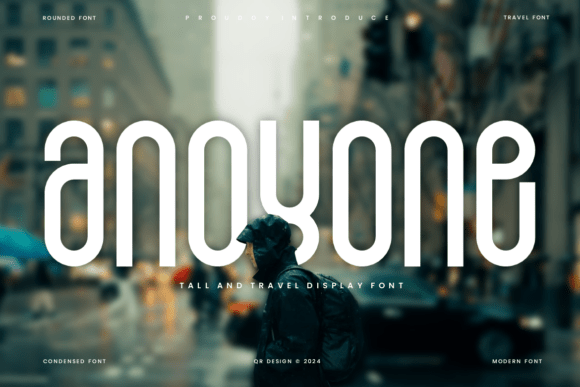
Unleashing Creativity with Anoyone Font
Imagine you’re brainstorming ideas for a new sports brand, and suddenly, the perfect logo pops into your mind. It’s bold, eye-catching, and screams excitement. But, have you ever struggled to find the right font to bring your vision to life? This is where Anoyone – Tall & Travel Display Font comes in – a game-changing typography solution that’s about to revolutionize your design process.
Anoyone Font is a versatile display font designed to make a statement in any branding project. From logos to sports jerseys, its bold and authentic style is sure to leave a lasting impression. As a designer, you know the importance of finding the perfect font to match your client’s brand identity. Anoyone Font is a valuable addition to your toolkit, offering endless possibilities for creative expression.
Anyone Font Key Features
- Font Family: Anyone Font is a sans-serif font family designed to be highly readable and versatile.
- Unique Characteristics: The font features a clean and modern design with a unique blend of geometric and organic elements, making it suitable for a wide range of applications, including corporate branding, advertising, and editorial content.
Anoyone Font Review
I recently had the chance to work with the Anoyone font, and I must say, it’s an interesting one. Here are my thoughts:
- Unique Character: Anoyone font has a distinct personality that sets it apart from other fonts. Its quirky design makes it perfect for projects that require a touch of whimsy.
- Legibility: Despite its unusual shape, the font is surprisingly readable, especially in larger font sizes.
- Limited Font Weights: The font family is relatively small, which can limit its versatility in certain projects.
- No Italic or Oblique Options: While the font is great for headings, it lacks italic or oblique options, which can be a drawback in certain situations.
- Not Ideal for Small Text: Due to its unique design, Anoyone font can become difficult to read in smaller font sizes.
Overall, I think Anoyone font is a great addition to any designer’s toolkit, but it’s not suitable for every project. Its unique character and legibility make it perfect for projects that require a touch of personality, but its limitations should be considered when choosing a font for more complex designs.
The Anoyone font is ideal for:
- Displaying headings and titles
- Creating eye-catching posters and flyers
- Designing unique and quirky branding
For best results, use the Anoyone font in bold or italic styles to add emphasis and visual interest.